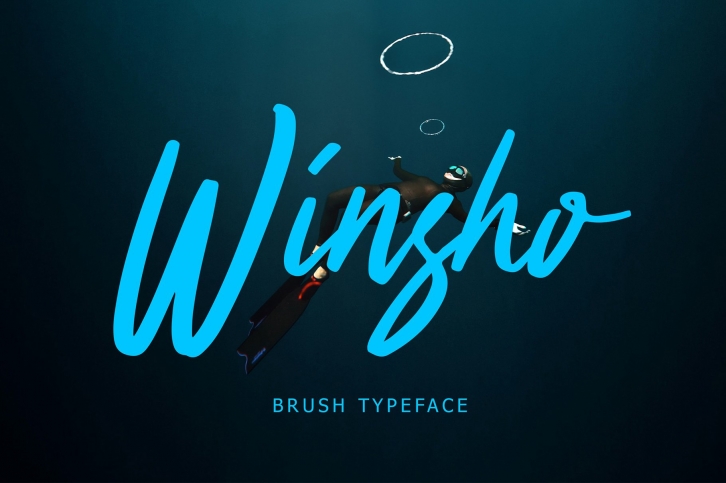
Winsho Brush Typeface Winsho Brush Typ is a trendy and unique font with an authentic style. It was designed by Formatika Studio and it's a great choice for creative people who need such a font. It was released on May 12, 2020 and the file size is 8.79 MB. Winsho Brush Typeface Winsho Brush Typ will add an organic vibe to any design idea!